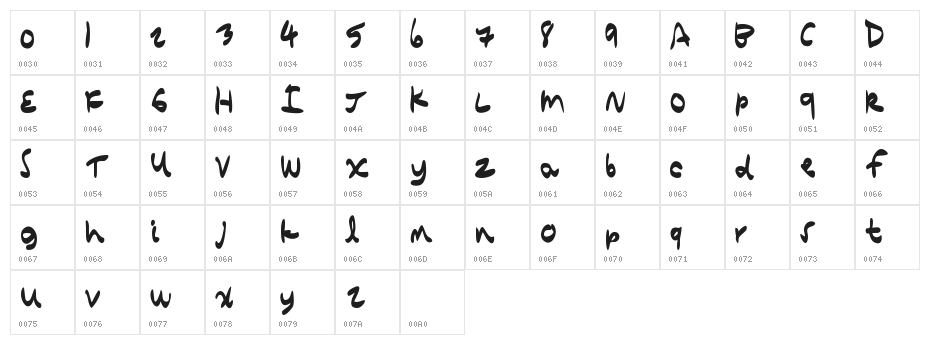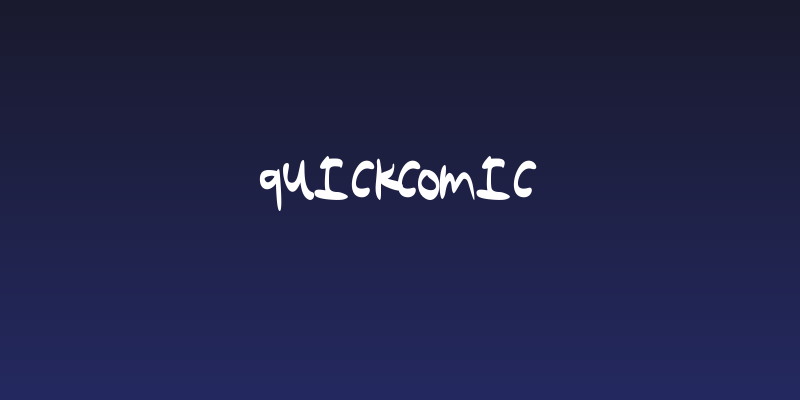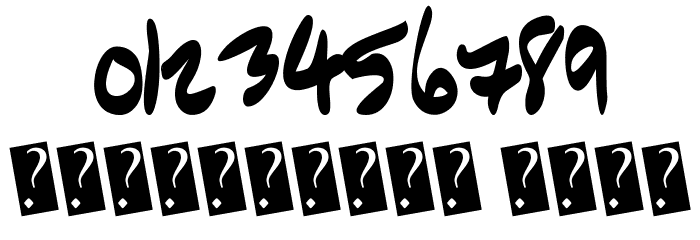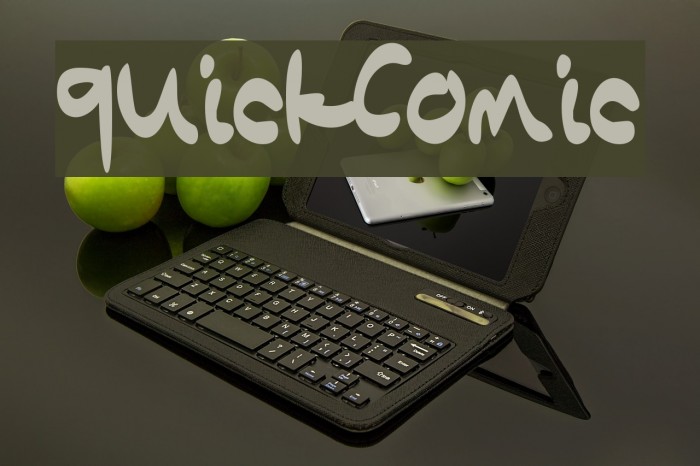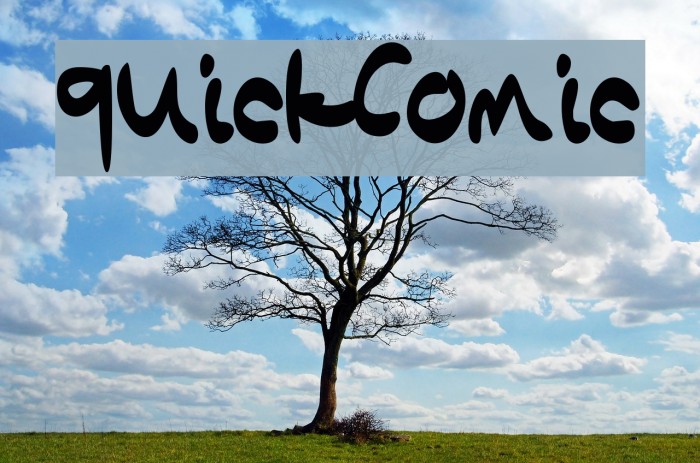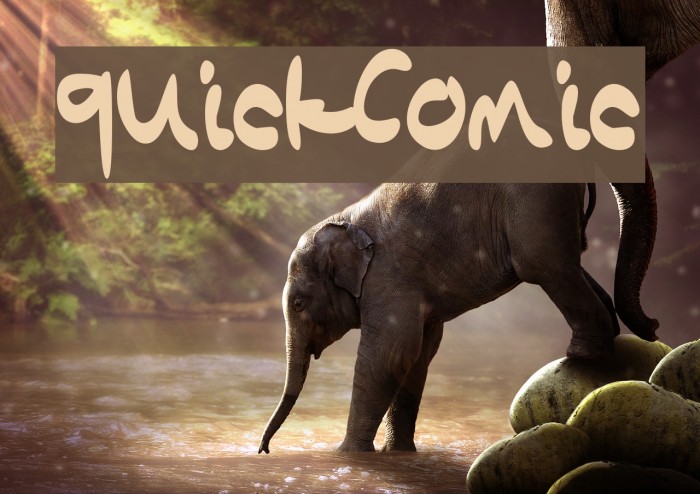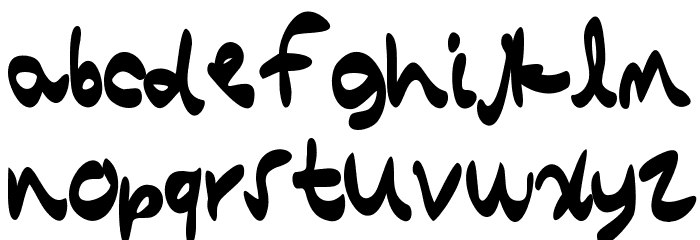
QuickComic Font
QuickComic Description
This font features a playful and dynamic style, reminiscent of handwritten comic book lettering. The characters are bold and slightly irregular, giving them a lively and informal appearance. The uppercase and lowercase letters maintain a consistent flow, with rounded edges and varying stroke widths that add to the casual aesthetic. The numbers and special characters follow the same design principles, ensuring uniformity across the font. The overall look is approachable and friendly, making it suitable for projects that require a touch of whimsy and creativity.
| Proposed Projects | Ideal for comic books, children's books, playful branding, and informal posters. |